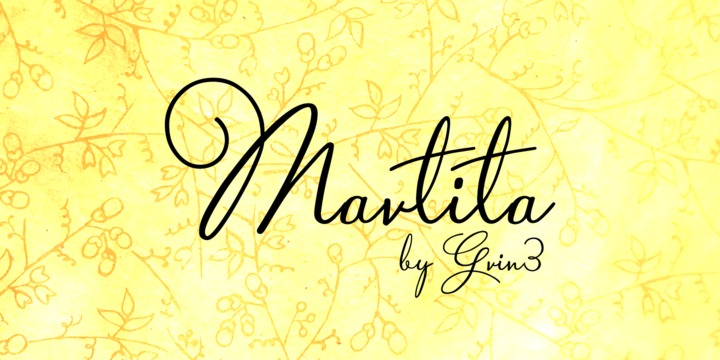
Ahra Font
Ahra
Ahra is an elegant calligraphic handwritten typeface created by Jessica McCarty and published by Magpie Paper Works that has three sets of capital letters, prepositions, envelope addressing, an ornate set of numerals 0-9 etc. It is perfect for headline, magazine,wedding etc. Have fun!
Copperlove Font
Copperlove
Copperlove is an elegant caligraphic handwritten typeface published by Resistenza that is perfect for your romantic project, wedding invitation, signature, logo etc.
Shameless Font
Shameless
Shameless is an elegant calligraphic handwritten typeface created by Summerour and published by Positype that has two versions: Standard (contains 2200+ characters) and Deluxe (contains 2400+ characters) perfect for headline, invitations, magazine, tattoo etc. The author used Kuratake Zig Cocolro pen. Have fun!
Only You Pro Font
Only You Pro
Only You Pro is a hand made script typeface created by Gabriel de Souza and published by LeType. With a romantic flavour, Only You Pro fully featured glyphs (alternates, ligatures and multilingual) are designed making every project you use it on look beautiful and bright!
Wilke Kursiv Font
Wilke Kursiv
Wilke Kursiv is a typeface created by Hans van Maanen & Martin Wilke and published by Canada Type. You’ll find 12 elegant, calligraphic fonts that it has swash caps, small capitals, figures, fractions and 700 characters. I’m sure you’ll need it to you future projects. Enjoy!
Heraldica Script Font
Heraldica Script
Heraldica Script is an elegant, decorative typeface created by Angel Koziupa & Alexandro Paul and published by Sudtipos perfect for logo, magazine, wedding invitation, jewelry packaging, book covers etc.
Bellissima Script Pro Font
Bellissima Script Pro
Bellissima Script Pro is a calligraphy handwritten typeface created by Alejandro Paul and published by Sudtipos that has almost 2000 characters full of alternates, swashes, ligatures and ornaments. It is perfect for your special project: correspondence, signature, love letters, wedding. You cannot miss Bellissima Script Pro!
Grenale Font
Grenale
Grenale is a typeface created by Jeremy Dooles and published by insigne. Grenale family includes 48 elegant sans-serif fonts perfect for wedding invitations, magazines. Also you’ll find a wide variety of alternates and an informative PDF brochure. I’m sure you need this font!
Matchmaker Font
Matchmaker
Matchmaker is a modern calligraphy typeface created by Angie Baldelomar and published by Fonted House. This elegant handwritten font has smart contextual alternates and swashes features. Have fun!
Antique Spenserian Font
Antique Spenserian
Antique Spenserian is a typeface created by Ryoichi Tsunekawa and published by Flat-it. You’ll find two varieties: Standard and ornamented capitals perfect for headlines, wedding invitations, logo and other projects. Have fun!
Mandevilla Font
Mandevilla
Mandevilla is a typeface created & published by Laura Worthington. It is an elegant font perfect for display, logos, titling, invitations, magazines etc. His creator was inspired by the forms found in nature. She has fascinated by the spirals and the references to nature. Also, you have a User’s Guide that will help you. Get it as soon as possible!
Port Font
Port
Port is a typeface created by João Oliveira and published by Onrepeat. The Port family contains 6 fonts avaible in several flavours: Port Regular, Port Medium Regular, Port Ornaments and Port Words. This typeface has the elegance calligraphy perfect for big sizes.
Slapjack Font
Slapjack
Slapjack is a typeface created by Stephen W. Rapp and published by Stephen Rapp. It is a handwritten font ideal for packaging, signage and titling. You’ll find a Stylistic Sets using Adobe InDesign. A font you cannot miss!
Saint Agnes Font
Saint Agnes
Saint Agnes is a typeface created by Molly Jacques Erickson & Dathan Boardman and published by Great Lackes Lettering. It is an elegant handwritten font perfect for invitations, weddings and cards. Have fun!
FM Christmas 3.0 Font
FM Christmas 3.0
FM Christmas 3.0 is a typeface created by Jordan Jelev and published by The Fontmaker. It is a handwritten font that contains 26 hand-lettered Christmas greetings perfect for your holiday design projects.
Carolyna Pro Black Font
Carolyna Pro Black
Carolyna Pro Black is a typeface created by Emily Conners and published by Emily Lime. It is a new version of Carolyna Pro. This  font  is an elegant handwriting with over 1000 characters.